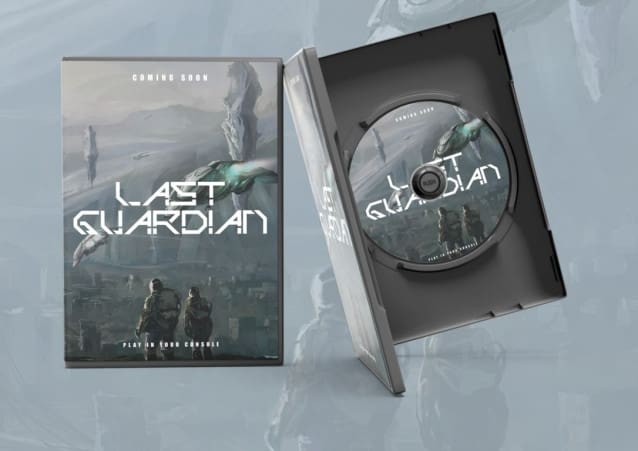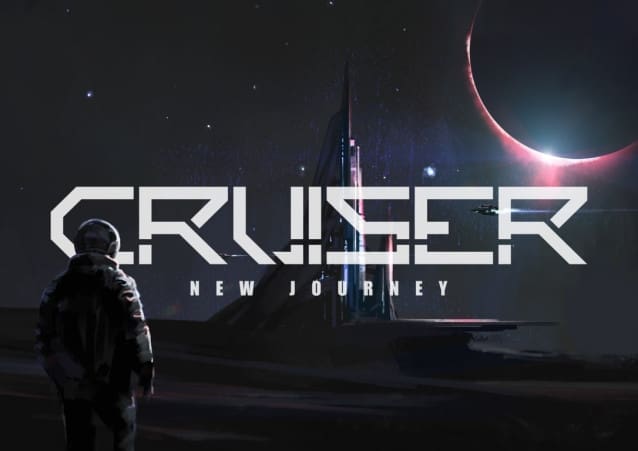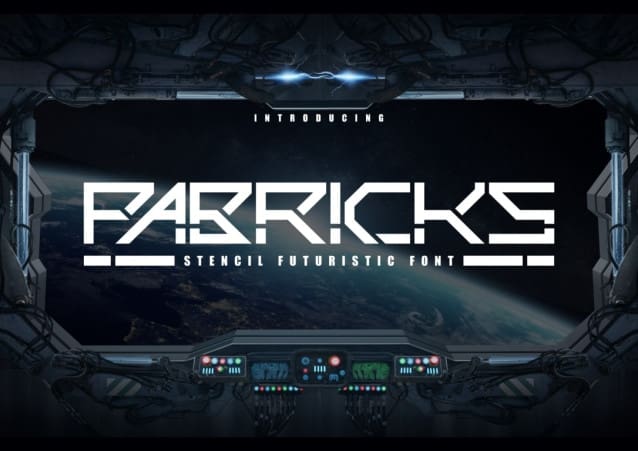
Pabricks Futuristic Font
Pabricks Futuristic Font a sans-serif font featuring unique lowercase characters that add a futuristic and modern touch to your designs. This versatile font can be used for various purposes, particularly for creating logotypes. By combining and experimenting with the letters, you can enhance the readability and visual impact of your logo. Let Pabricks bring a contemporary flair to your designs and make a lasting impression.